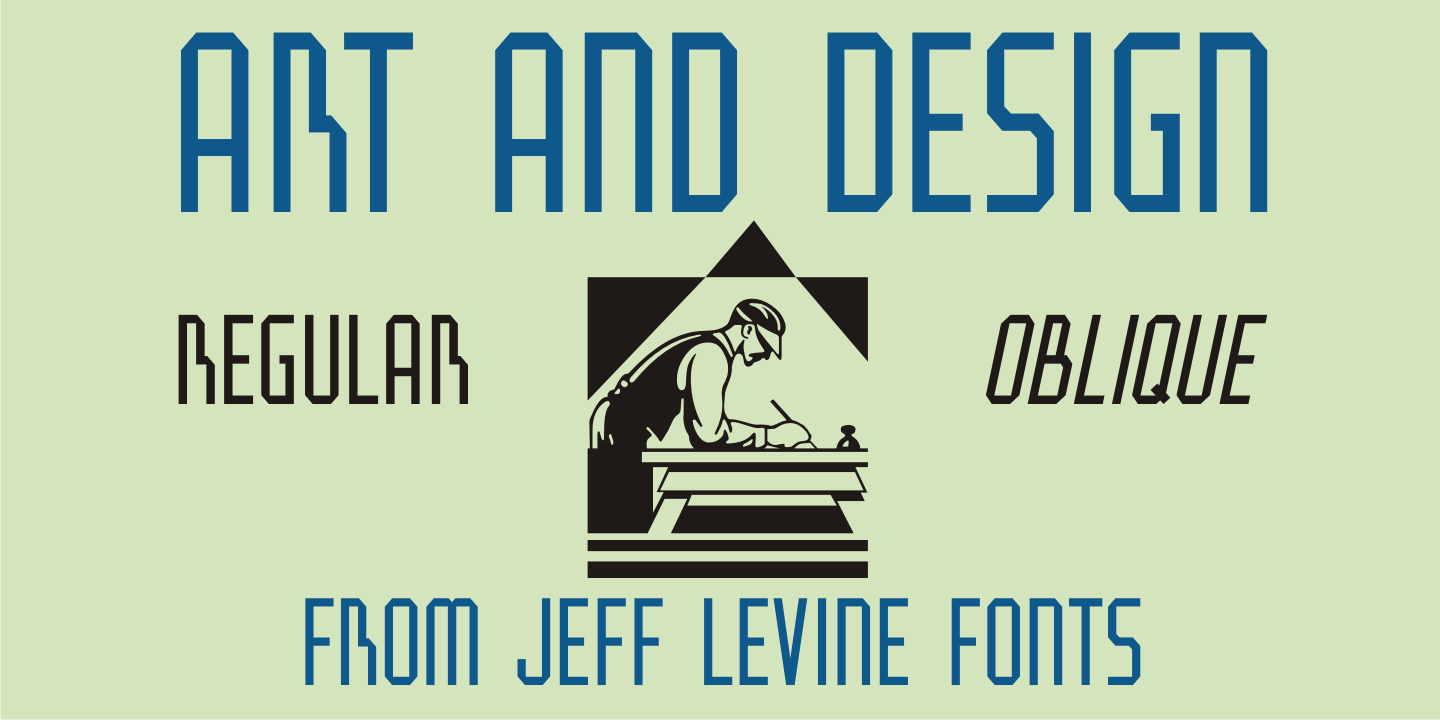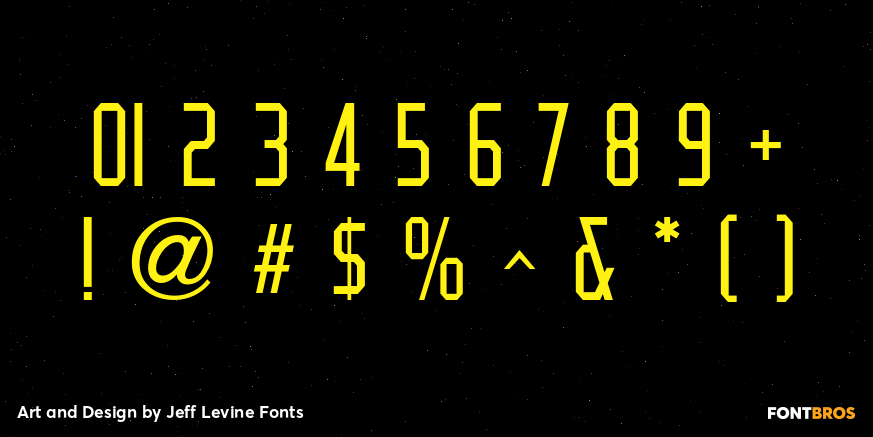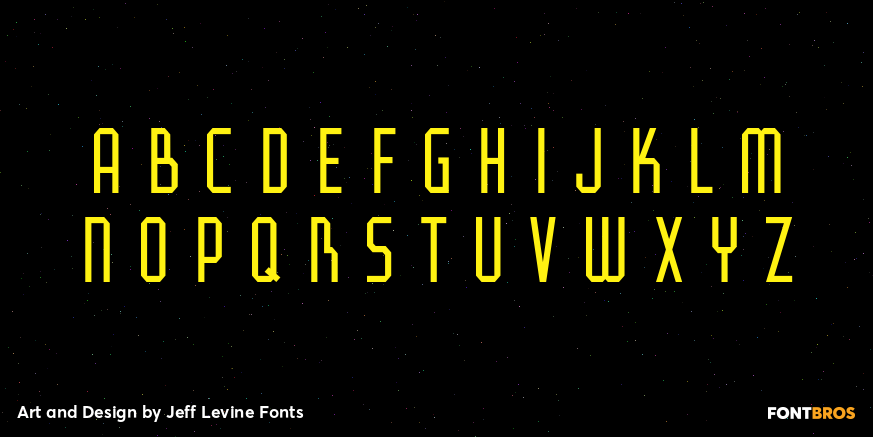
Art and Design
A 1930s-era WPA (Works Progress Administration) poster advertising a Federal Art Project exhibit entitled 'Index of American Design” was the basis for Art and Design JNL.
Art and Design JNL Regular by Jeff Levine Fonts